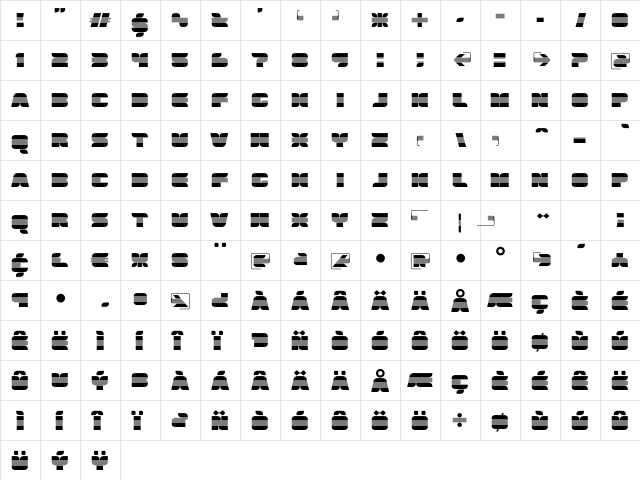
Gemini XRegular Regular
Design Context for Gemini XRegular Typeface
Gemini XRegular is a composed and adaptable typeface that performs quietly and consistently across a wide range of design contexts.